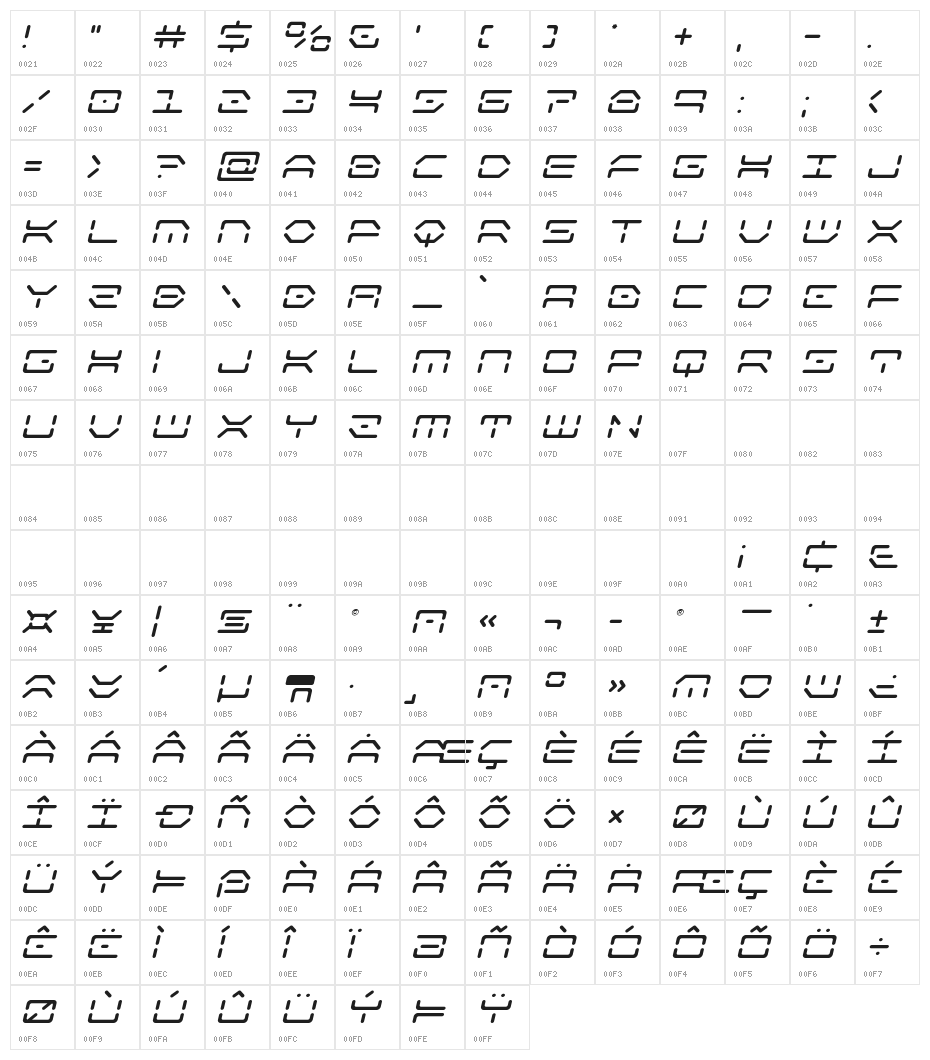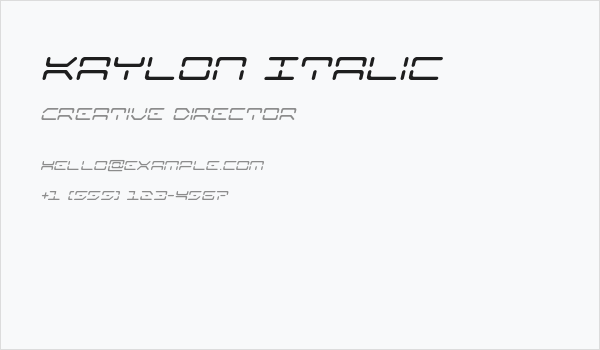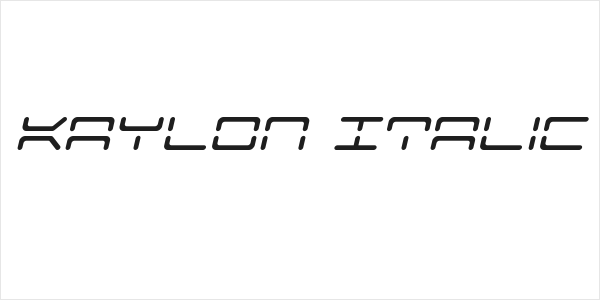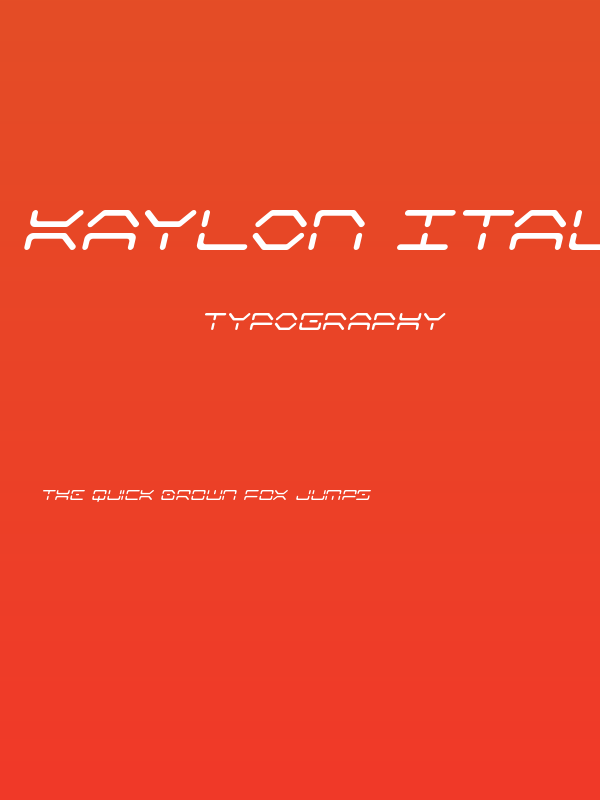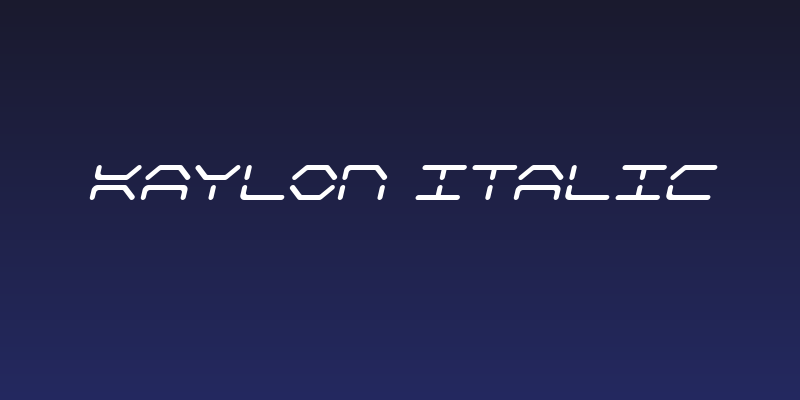
Kaylon Italic Font
Kaylon Italic Description
This font features a futuristic and geometric design with a distinct italic slant. The characters are constructed with a series of connected lines and angles, giving it a digital and modern appearance. The uppercase and lowercase letters maintain a consistent style, with rounded edges and a uniform stroke width. Numbers and special characters follow the same design principles, ensuring a cohesive look across all glyphs. The font's unique style makes it stand out, suitable for projects that require a tech-savvy or avant-garde aesthetic.
| Proposed Projects | Ideal for technology branding, sci-fi movie posters, video game titles, and digital interfaces. |